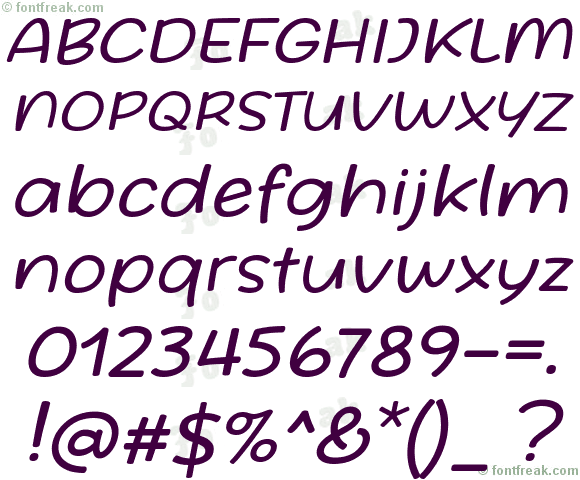
Friday October Twelve
Friday October Twelve Italic
Friday October Twelve is a charming script font designed by Situjuh Nazara, falling under the category of handwritten typefaces. This font showcases a delightful blend of elegance and informality, making it perfect for a variety of creative projects. The strokes are fluid and slightly varied in weight, giving it a dynamic quality that adds character without compromising legibility. The overall spacing is well-balanced, allowing for easy readability while maintaining a playful aesthetic.
Visual characteristics of the Friday October Twelve font include its italicized form, which enhances its casual yet sophisticated appeal. The curves in the letters are smooth and inviting, with subtle decorative elements that add a touch of whimsy. This makes it an excellent choice for designs that require a personable and warm touch.
The font is particularly well-suited for wedding invitations, where its romantic flair can beautifully convey heartfelt messages. Additionally, it can be used effectively in branding for small cafes or bistros, lending a cozy and welcoming atmosphere to restaurant menus. Graphic designers will find it ideal for crafting eye-catching social media graphics, while content creators can utilize it in blogs or newsletters to create an engaging and friendly tone.
Targeting graphic designers, small business owners, and content creators alike, Friday October Twelve offers a versatile option for those looking to infuse their work with personality. Its freeware license also makes it accessible to a wider audience, allowing for creativity without financial constraints.
Overall, Friday October Twelve stands out for its unique blend of elegance and approachability, making it a fantastic choice for projects that aim to connect with audiences on a personal level. For those interested, the Friday October Twelve font free download is readily available, inviting you to explore its charming qualities.